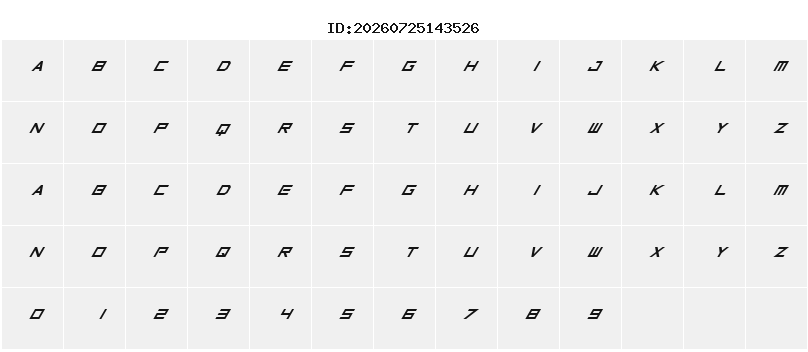
• Font Name: Inversionz Unboxed
• Designer: Darrell Flood
About Inversionz Unboxed.otf
Inversionz Unboxed.otf is a modern, elegant sans-serif font designed for ultimate readability and visual harmony. Perfect for branding, headlines, web design, and print materials.